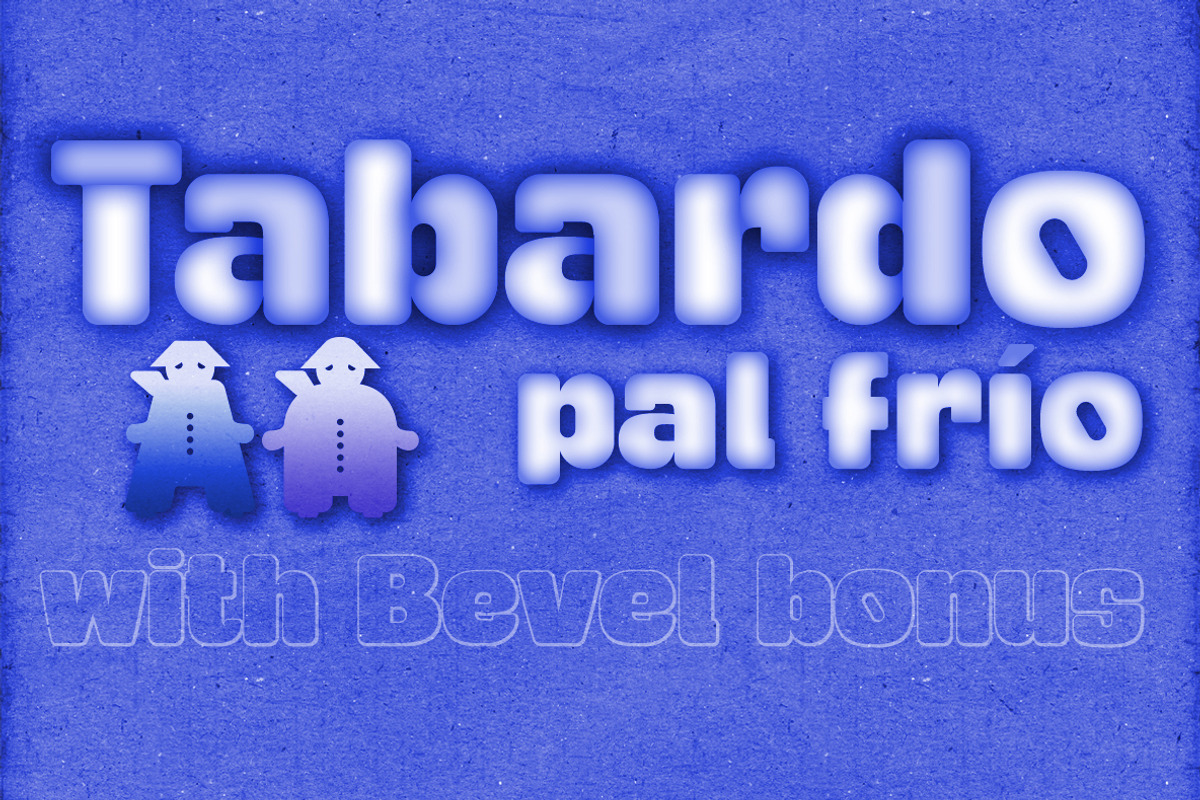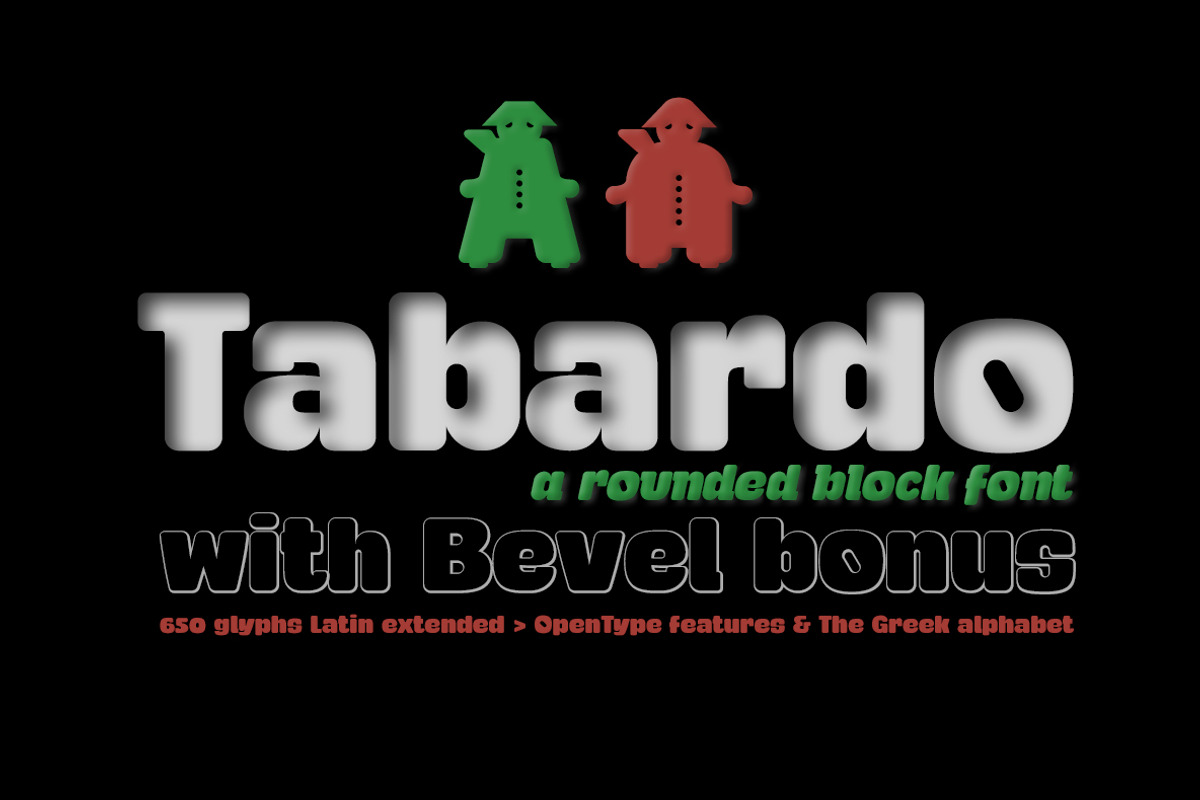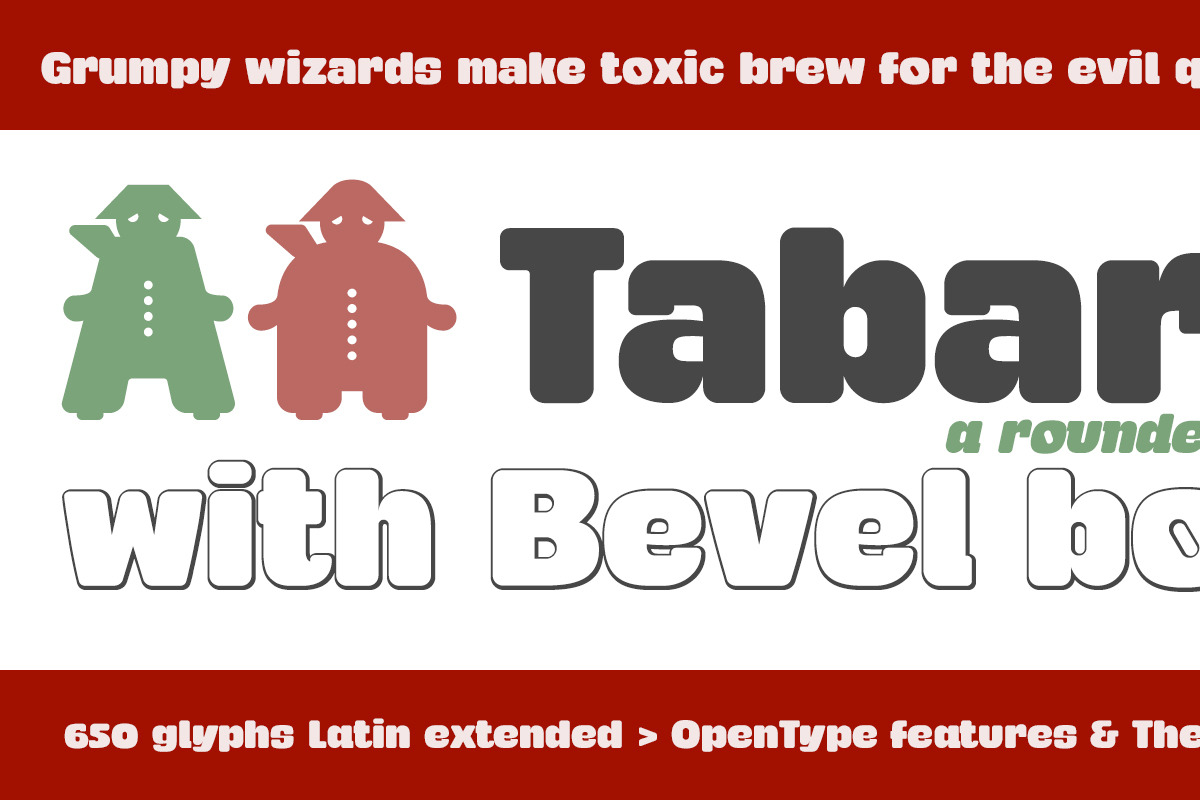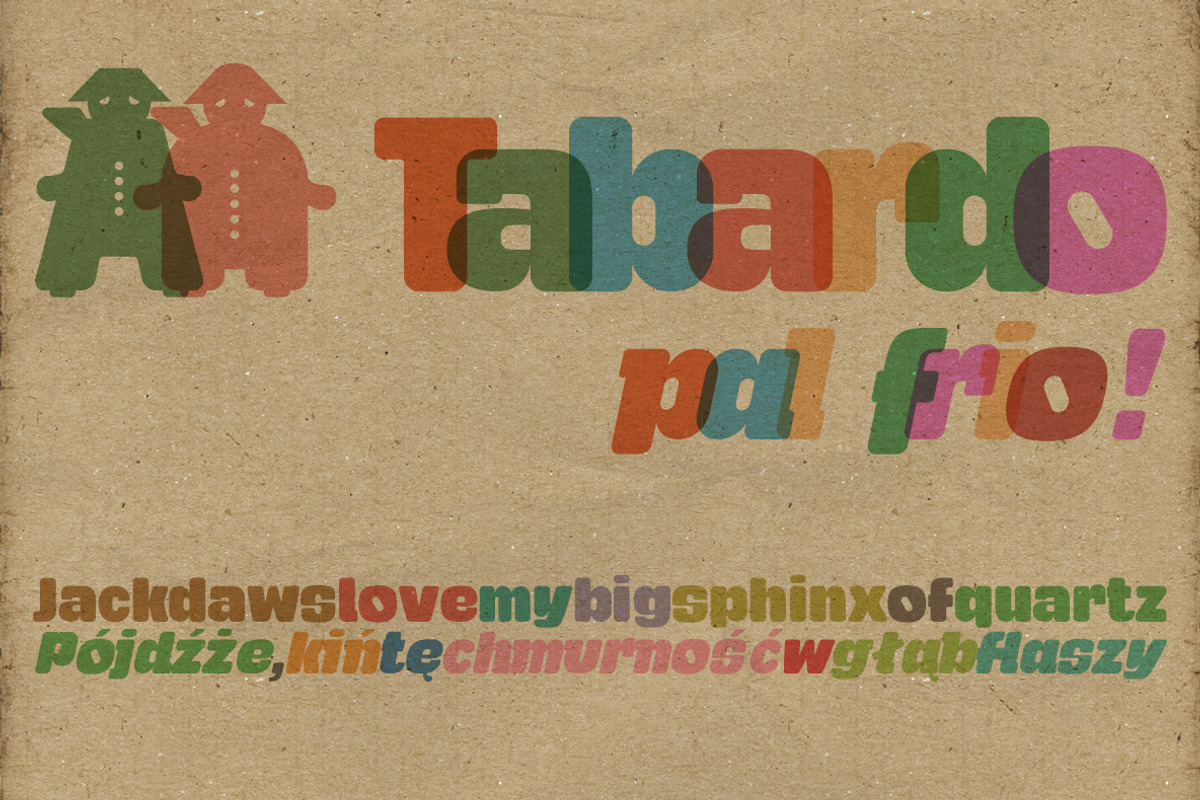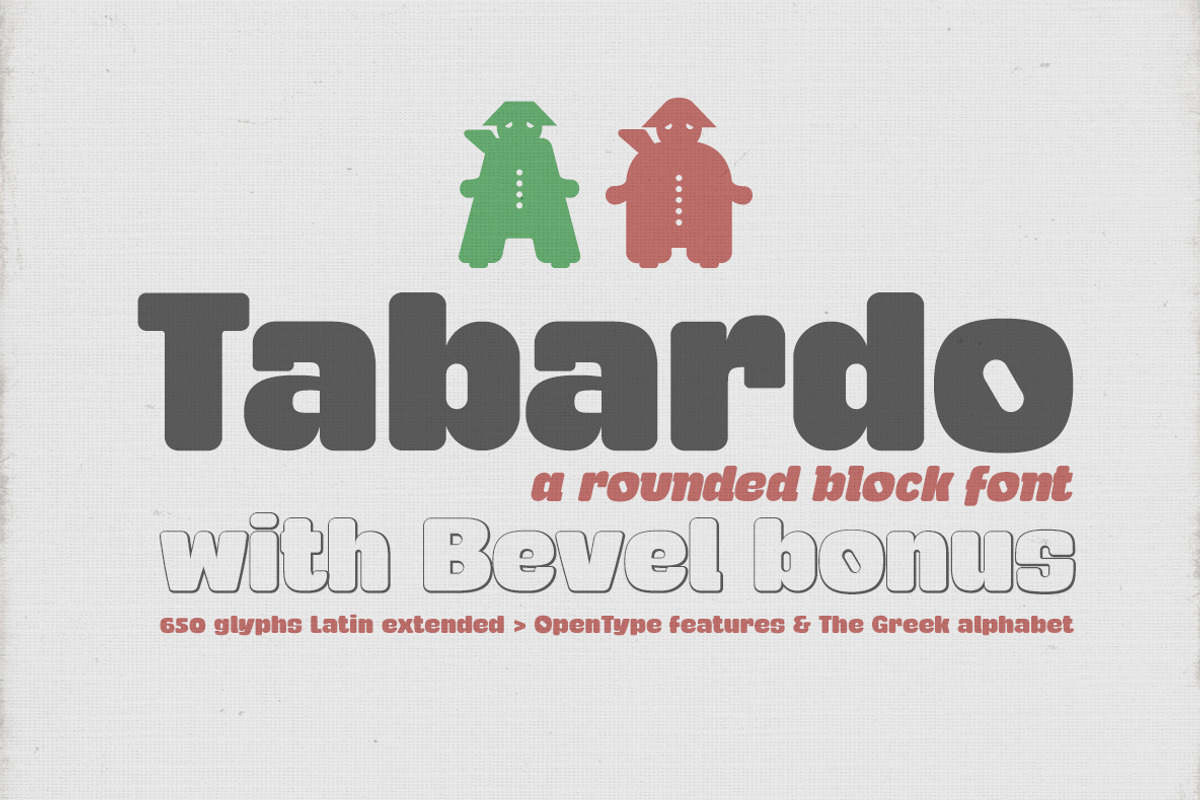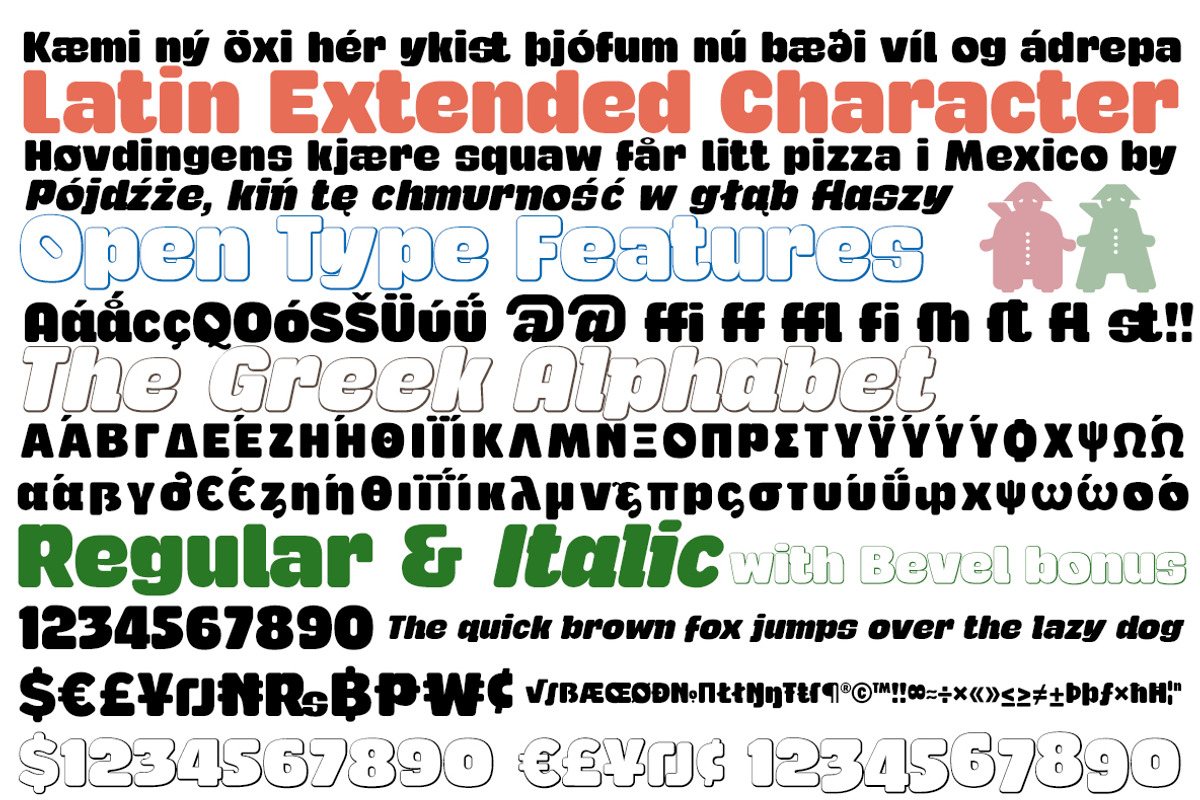
Tabardo font + bonus
Tabardo font + bonus by deFharo is a font selected for branding, posters, packaging, typography.
- The close spacing between characters and the detailed configuration Kerning make this typeface is very legible.